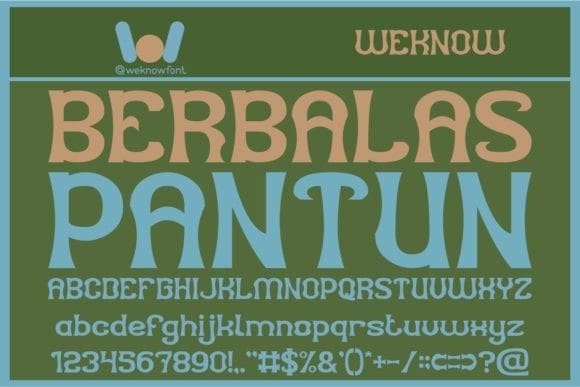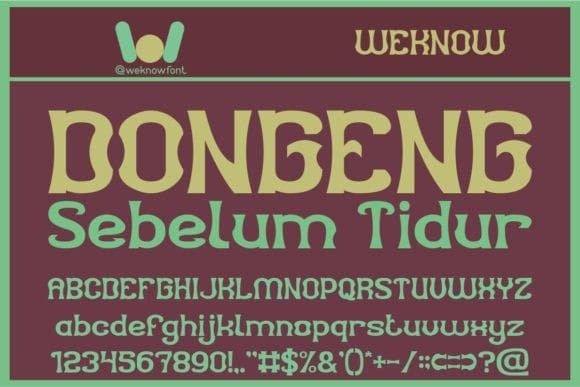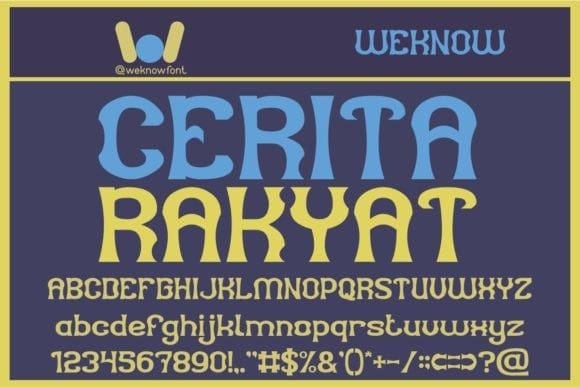
Cerita Rakyat Font
Cerita Rakyat Font is a cool and modern display font. It is the best choice for creating eye catching logos, branding and quotes. Every letter has a unique and beautiful touch, which will make your design come alive!